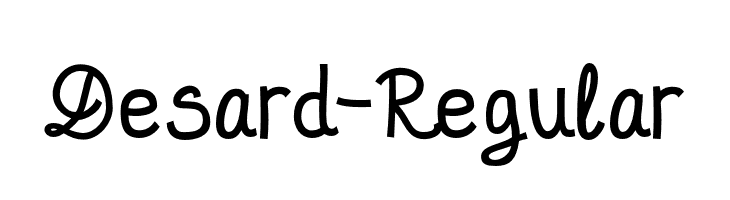
A playful, bold font with rounded, bubbly characters and a hand-drawn style.
A graceful script font with fluid, cursive strokes and elegant character design.
A playful, casual handwritten font with smooth, flowing lines.
A lively and flowing script font with elegant curves and smooth connections.
A bold, playful font with rounded, hand-drawn characters.
A refined, cursive script font with a flowing, handwritten style.
A dynamic, brush-style cursive font with a hand-drawn appearance.
A playful, handwritten font with smooth, rounded edges and a casual style.
A playful and elegant handwritten script font with fluid, connected letters.
A cursive, handwritten font with elegant, flowing strokes.